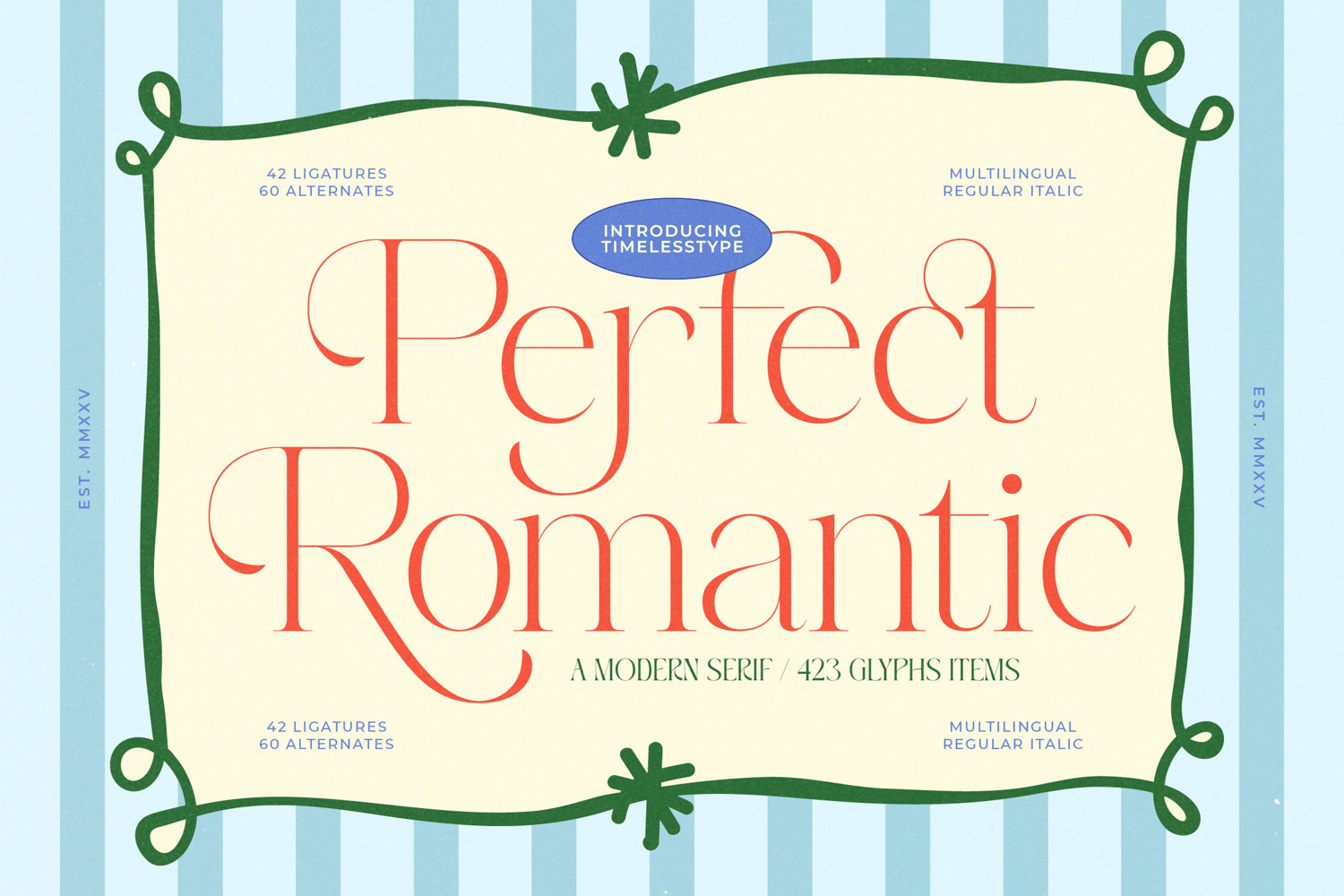
Perfect Romantic - Modern Serif
Perfect Romantic - Modern Serif. This typeface is a masterclass in balance, merging the classic precision of a modern serif with a distinctively romantic and whimsical undertone. Its characters feature exaggerated high-contrast strokes and delicate terminals that instantly command attention, delivering an aesthetic that is both sophisticated and invitingly playful. It is meticulously designed specifically for maximizing visual impact in display settings and high-profile creative projects.